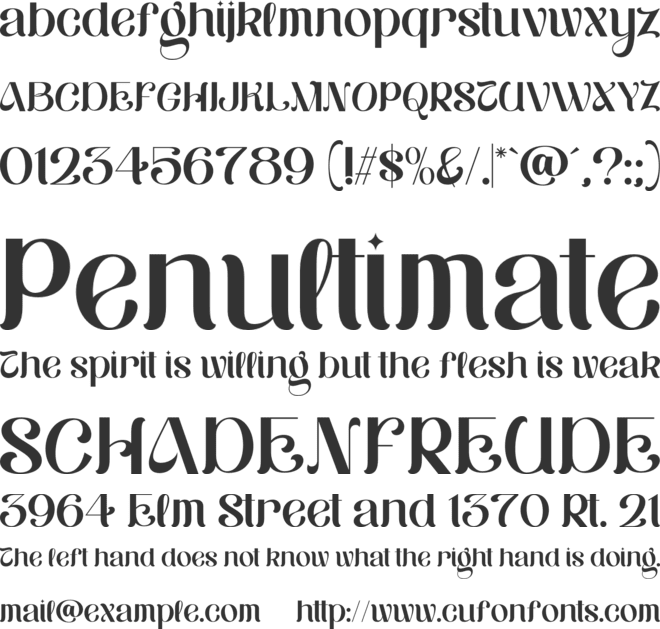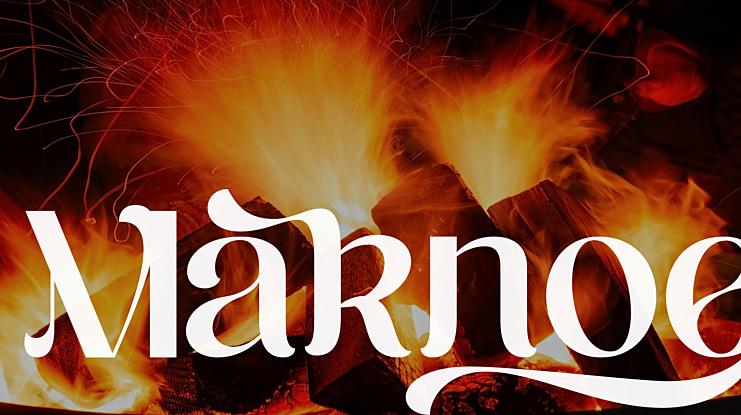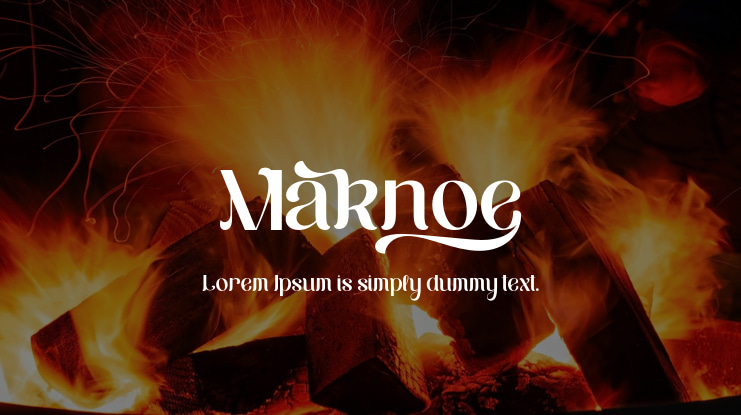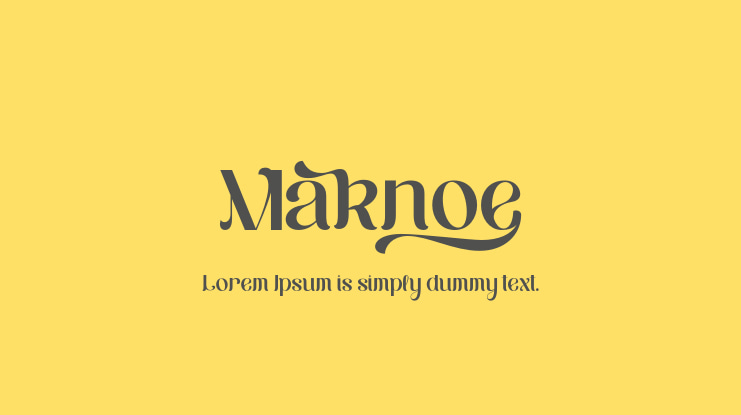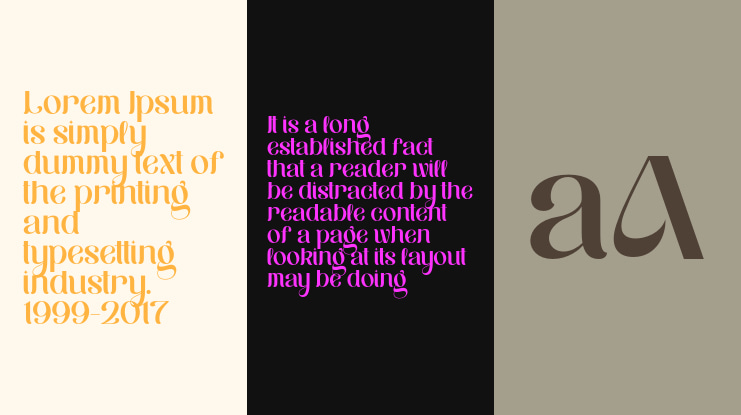
Maknoe Font
Maknoe is a classic serif typeface. This beautiful serif font is suitable for
logo, headline, cover book, magazine, and many more. Maknoe font is PUA encoded, which means you can access all of the glyphs and swashes with ease!